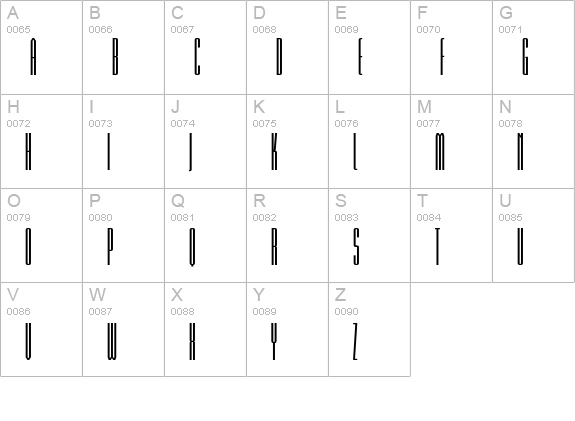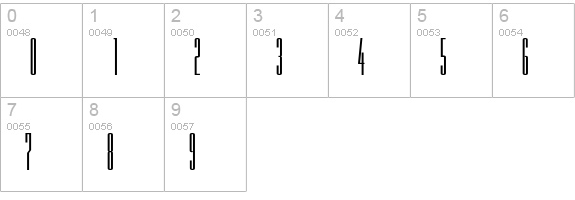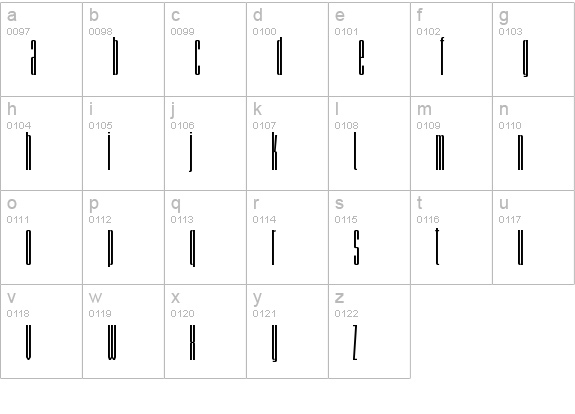
Briem Akademi Std Bold Compressed is a strong, high-contrast, condensed-width variant in the Briem typeface family \xE2\x80\x94 well suited to headlines, attention-grabbing titles, and strong calls-to-action.
Briem Akademi Std Bold Compressed is a modern and stylish typeface that exudes confidence and professionalism. Its bold and compressed design makes it perfect for headlines, titles, and other attention-grabbing text. The sharp edges and strong lines of this font give it a sleek and contemporary look that is sure to make a statement. Whether you're designing a poster, a logo, or a website, Briem Akademi Std Bold Compressed will help you achieve a bold and impactful design. Its versatility allows it to be used in a variety of design projects, making it a valuable addition to any designer's toolkit. Best of all, Briem Akademi Std Bold Compressed is available for free download at FontsMarket.com. This means you can start using this stylish font in your projects right away, without having to spend a dime. Don't miss out on the opportunity to enhance your designs with this eye-catching and versatile typeface. Download Briem Akademi Std Bold Compressed today and see the difference it can make in your design projects!